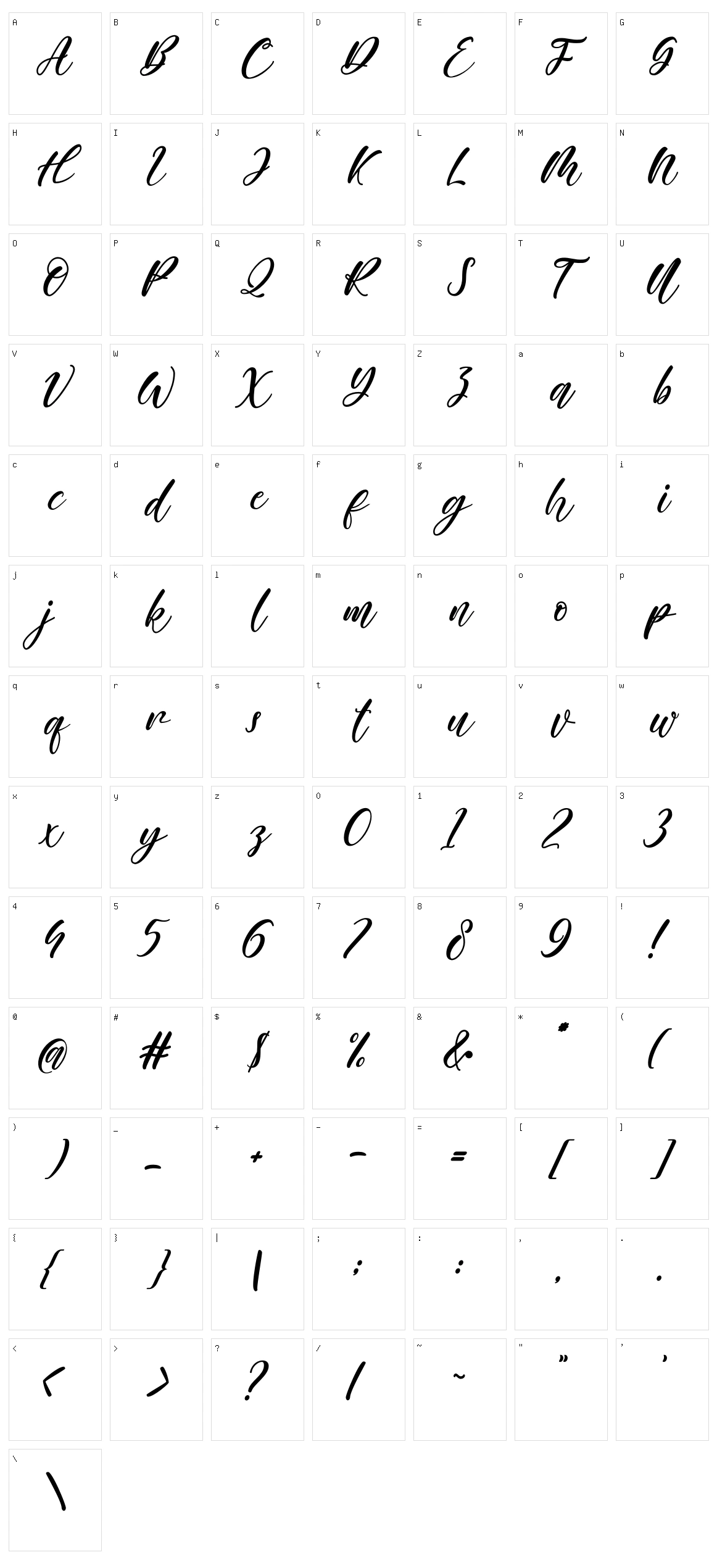
The free font Farisky Marlline is carefully designed by StringLabs Creative Studio, showcasing a thoughtful balance of creativity and usability and falls under the Script font style. When you download the ZIP file, it contains only 155.3 KB of font files, making it lightweight and quick to download. Please review the license details below to understand permitted usage and distribution rights. If license information is not available, we recommend using this font for personal projects only or contacting the author directly for commercial usage permissions.